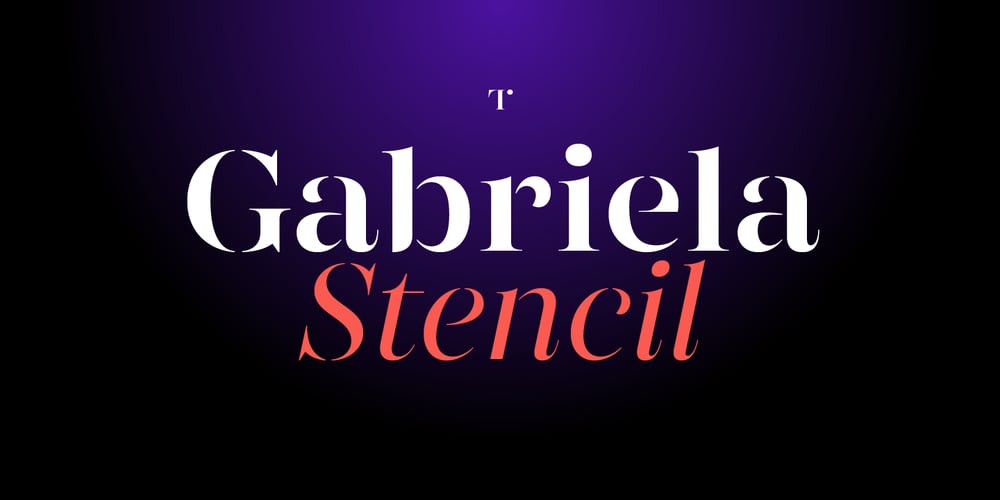
Gabriela Stencil Font Family was designed by Antonio Mejía and published by Lechuga Type. Gabriela Stencil contains 14 styles and family package options. For this upgrade, we decided to generate 7 weights instead of the original 6. We completely redesigned the italics to be more natural and organic. We increased the number of alternates, discretionary ligatures, and in other cases, completed the alternates with their respective diacritics. Finally, we refined details in several characters that we wanted to improve.Gabriela Stencil, a fashion magazine-inspired typeface with an edgy, elegant couture feel that will make your designs stand out. Whether it’s for advertising, editorial, packaging, or branding, its personality will steal the show. Inspired by the style of 19th century Didone typefaces. It is ideal for headlines, short texts, branding, and publishing projects. The family comes in 7 weights, plus a matching italic, and supports 94 different languages.